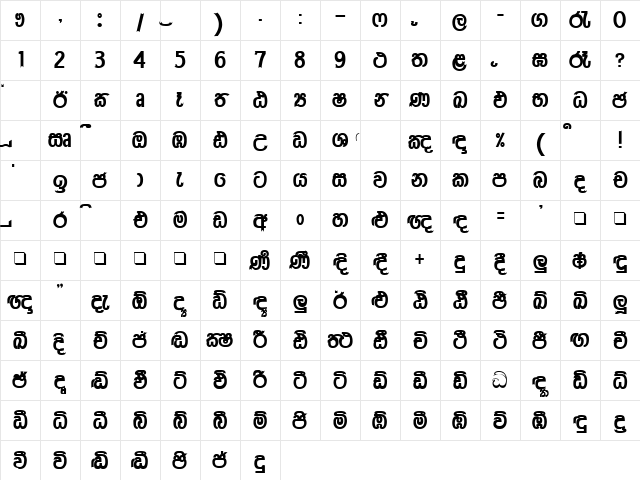
A Dilini Plain.
Style: Plain.
Design Context for A Dilini
A Dilini is a composed and adaptable typeface that performs quietly and consistently across a wide range of design contexts.